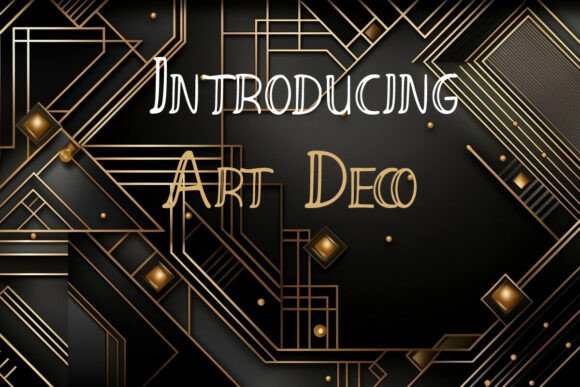
Introducing Art Deco: Elevate Your Designs with Timeless Elegance
Are you looking for a font that can add a touch of sophistication and glamour to your designs? Look no further than Art Deco, a versatile font that effortlessly combines style and functionality. With its distinct character and striking presence, Art Deco is perfect for designers and crafters who want to create compelling branding identities, eye-catching T-shirt designs, and stunning visual content that stands out.
Unleash Your Creativity with Art Deco
Art Deco is more than just a font – it’s an experience. Its unique character makes it perfect for adding a touch of personality to your designs, whether you’re creating T-shirt designs, stickers, or personalized greeting cards. With Art Deco, you can elevate your Cricut projects to a whole new level and let your posters communicate in a unique voice. The font’s adaptability to various design applications makes it a vital asset for designers and crafters who want to create visually stunning content.
Perfect for Branding and Magazine Layouts
Art Deco’s striking presence makes it a vital asset for those building compelling branding identities or creating magazine layouts that stand out. The font’s elegant and sophisticated design ensures that your brand’s message is conveyed with clarity and style, making it perfect for:
- Logo design: Create a lasting impression with Art Deco’s unique character.
- Magazine layouts: Add a touch of glamour to your magazine spreads and make them stand out.
- Packaging design: Elevate your product packaging with Art Deco’s sophisticated design.
SVG Files and Cricut Projects
Art Deco shines in SVG files, making it perfect for crafters who work with cutting machines like Cricut. The font’s crisp and clean design ensures that your projects are precise and visually stunning. With Art Deco, you can create:
- Custom T-shirts: Add a touch of personality to your T-shirt designs.
- Personalized stickers: Create custom stickers with Art Deco’s unique character.
- Custom signs: Elevate your signs and make them stand out with Art Deco’s elegant design.
Perfect for Social Media and Greeting Cards
Art Deco is beautifully adaptable to social media platforms, enhancing your content and turning heads. The font’s elegant design ensures that your social media posts stand out in a crowded feed, making it perfect for:
- Instagram posts: Add a touch of glamour to your Instagram posts and stories.
- Facebook posts: Elevate your Facebook posts and make them more engaging.
- Twitter posts: Create visually stunning Twitter posts with Art Deco’s unique character.
Additionally, Art Deco is perfect for creating personalized greeting cards that touch everything with class and individuality. The font’s rich and immersive quality ensures that your greeting cards are memorable and special.
Why Choose Art Deco?
With so many fonts available, why choose Art Deco? Here are just a few reasons why Art Deco stands out:
- Unique character: Art Deco’s distinct character makes it perfect for adding a touch of personality to your designs.
- Versatility: The font is adaptable to various design applications, making it a vital asset for designers and crafters.
- Elegant design: Art Deco’s sophisticated design ensures that your designs are visually stunning and engaging.
Art Deco is a font that touches everything with class and individuality. Its unique character, versatility, and elegant design make it perfect for designers and crafters who want to create visually stunning content. Whether you’re building compelling branding identities, creating magazine layouts, or crafting personalized greeting cards, Art Deco is the perfect choice. Experience the rich, immersive quality of Art Deco and elevate your designs to a whole new level.